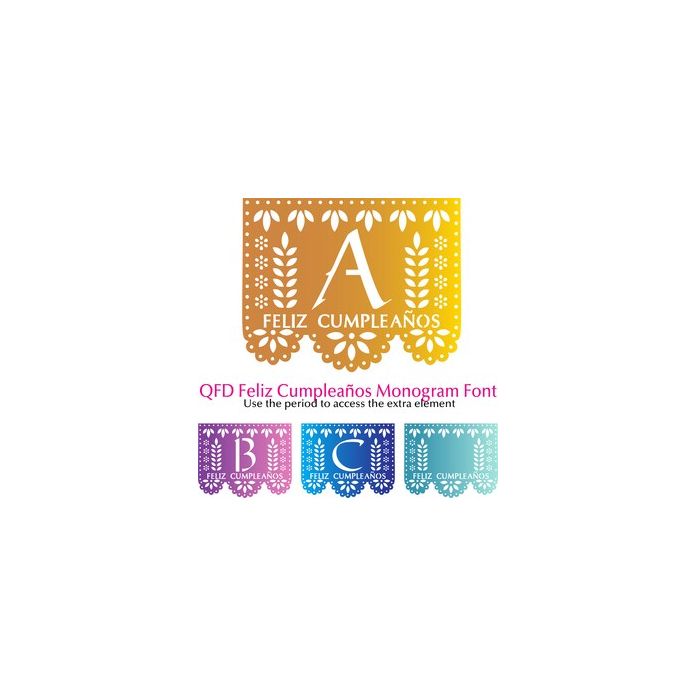
QFD Feliz Cumpleanos Monogram Font
Happy Birthday! Cut your message and/or name from the letters in the font and hang to celebrate! You can use these monograms on gift tags, cards, pillows, invitations, wall art, t-shirts, mugs and anything else you can think of. Follow the Silhouette instructions for installing fonts and have fun!